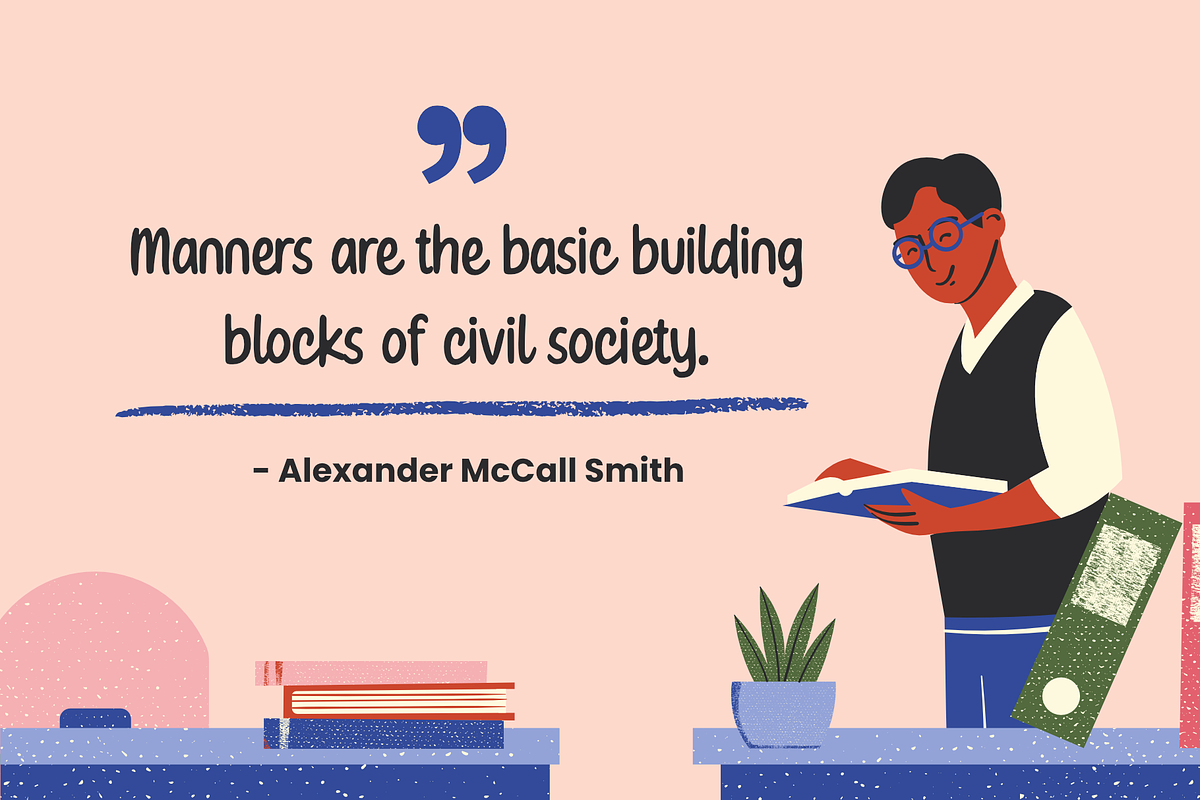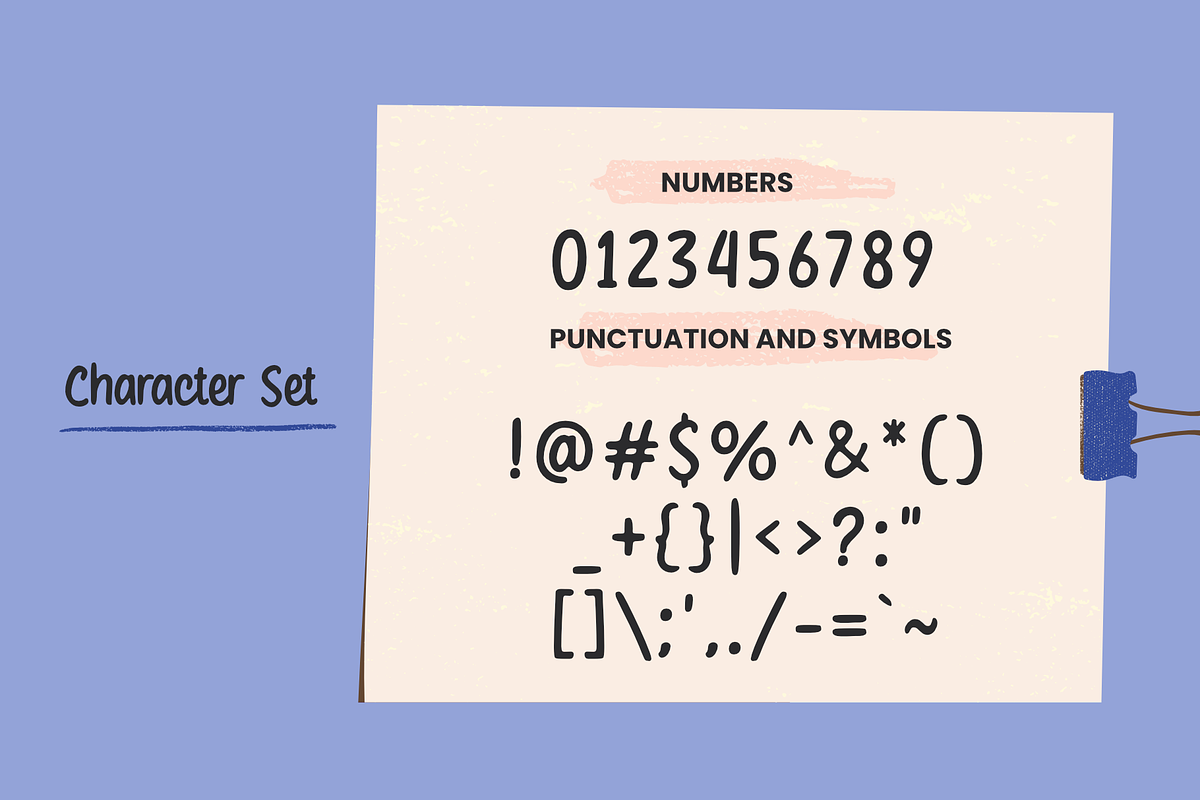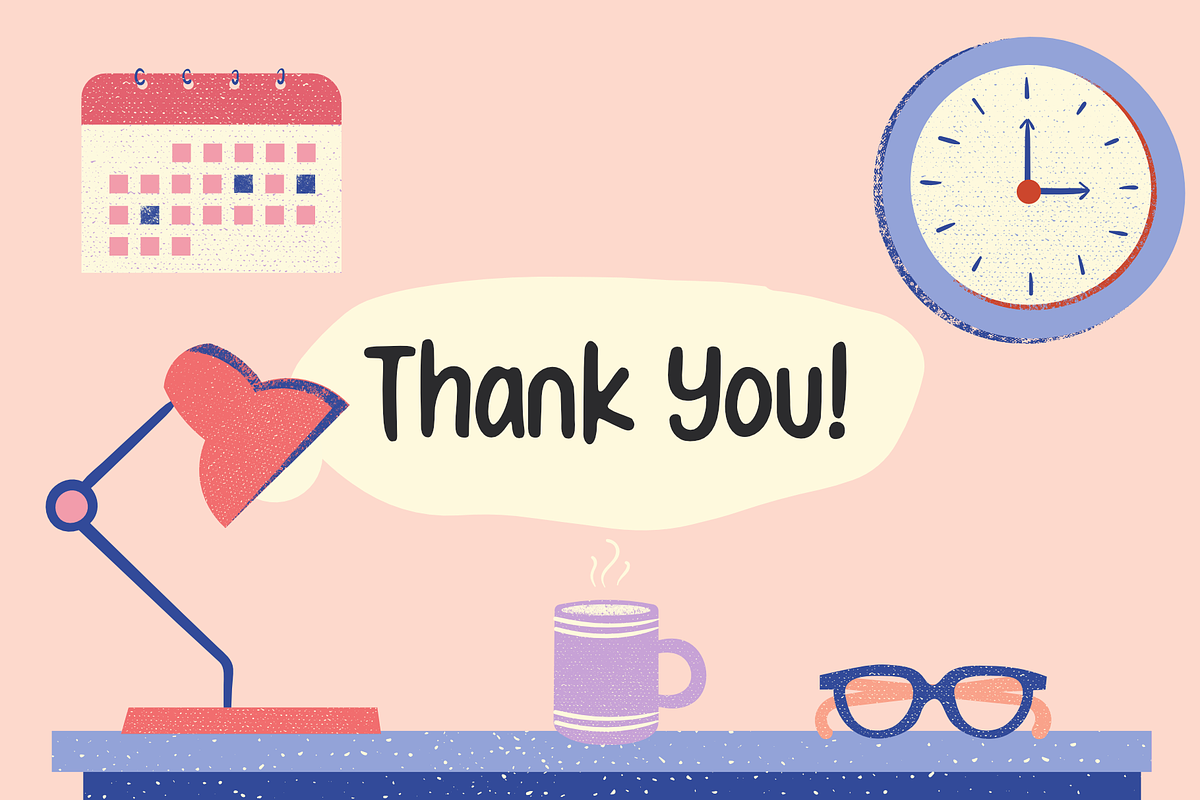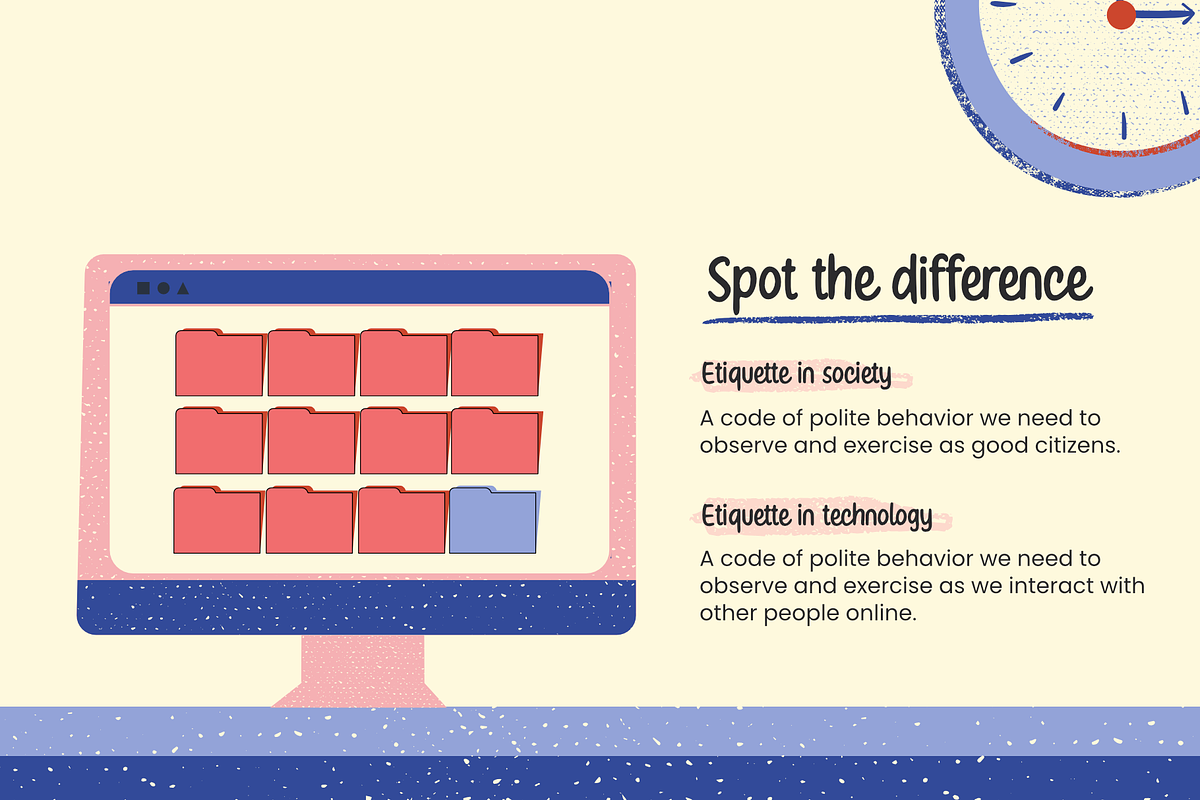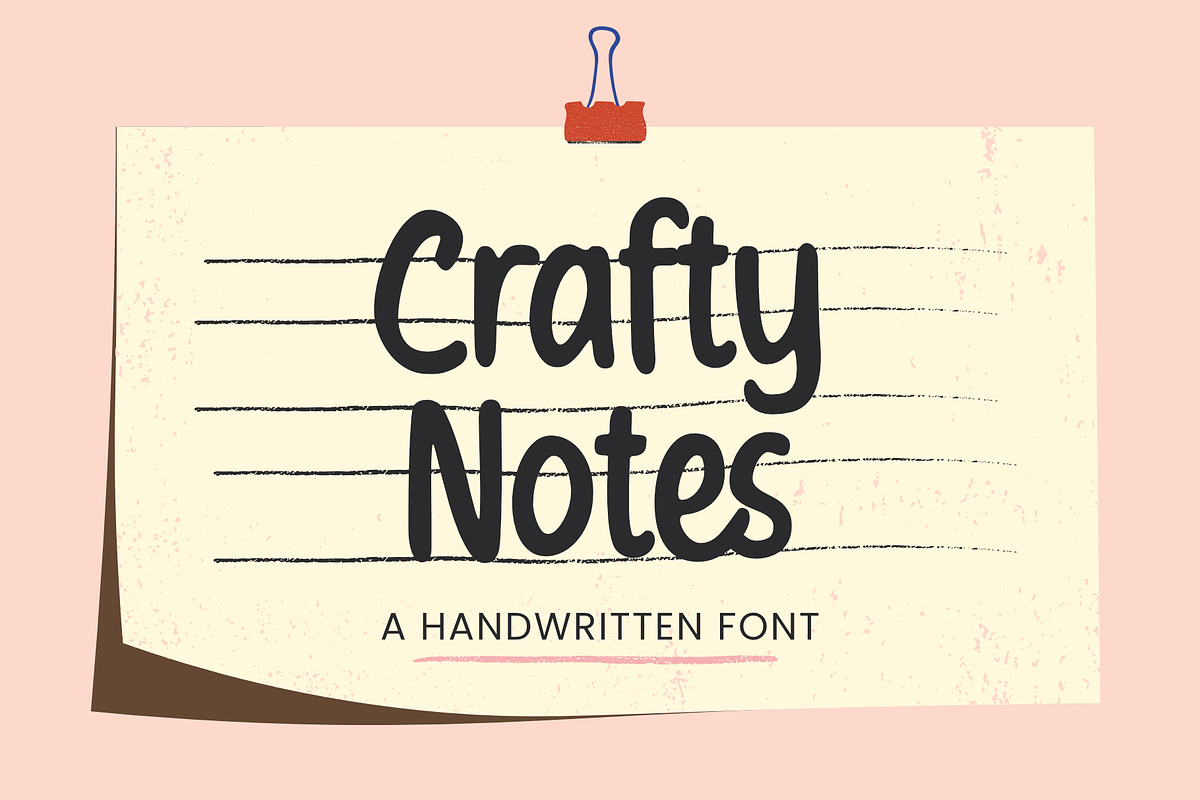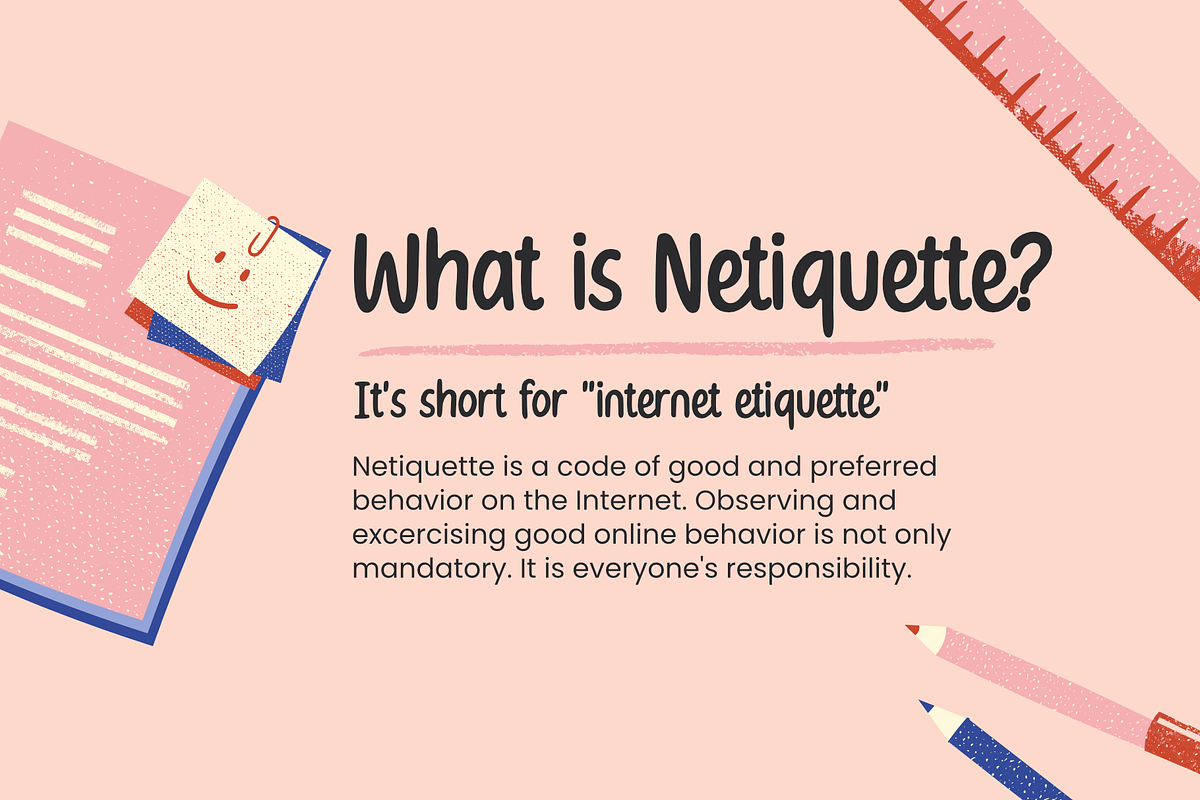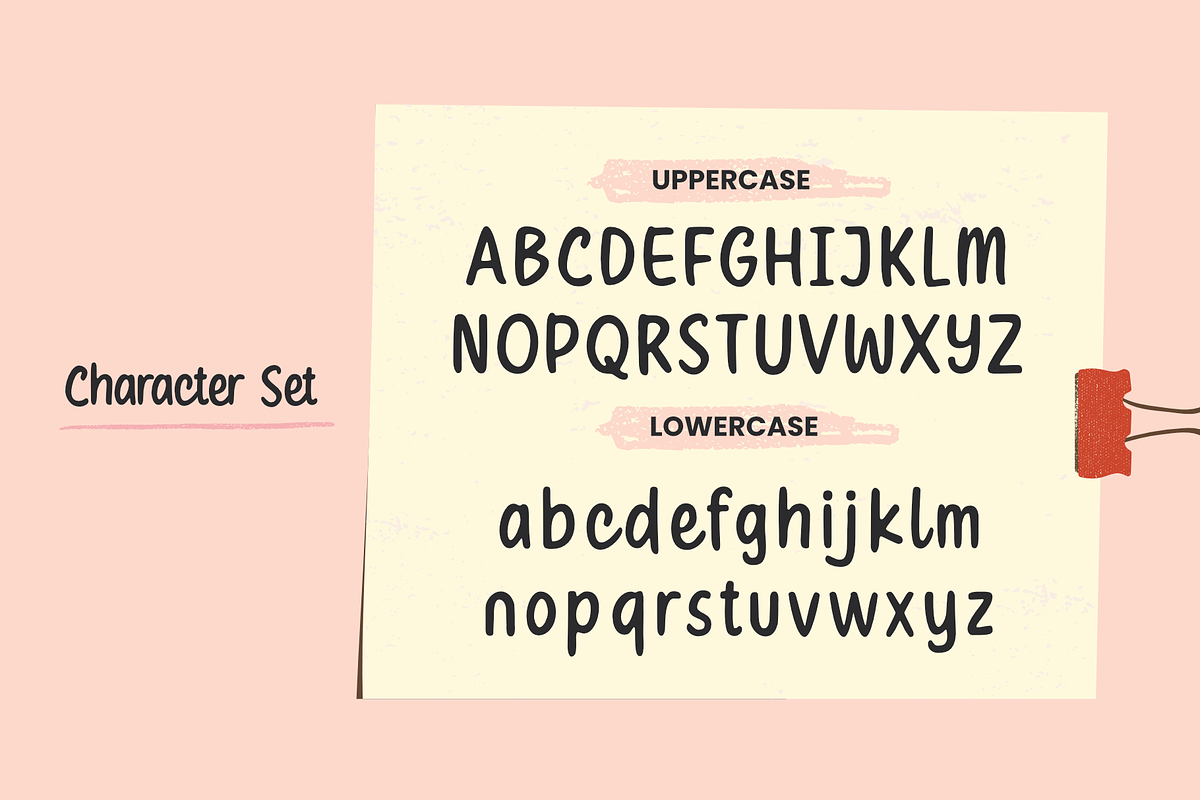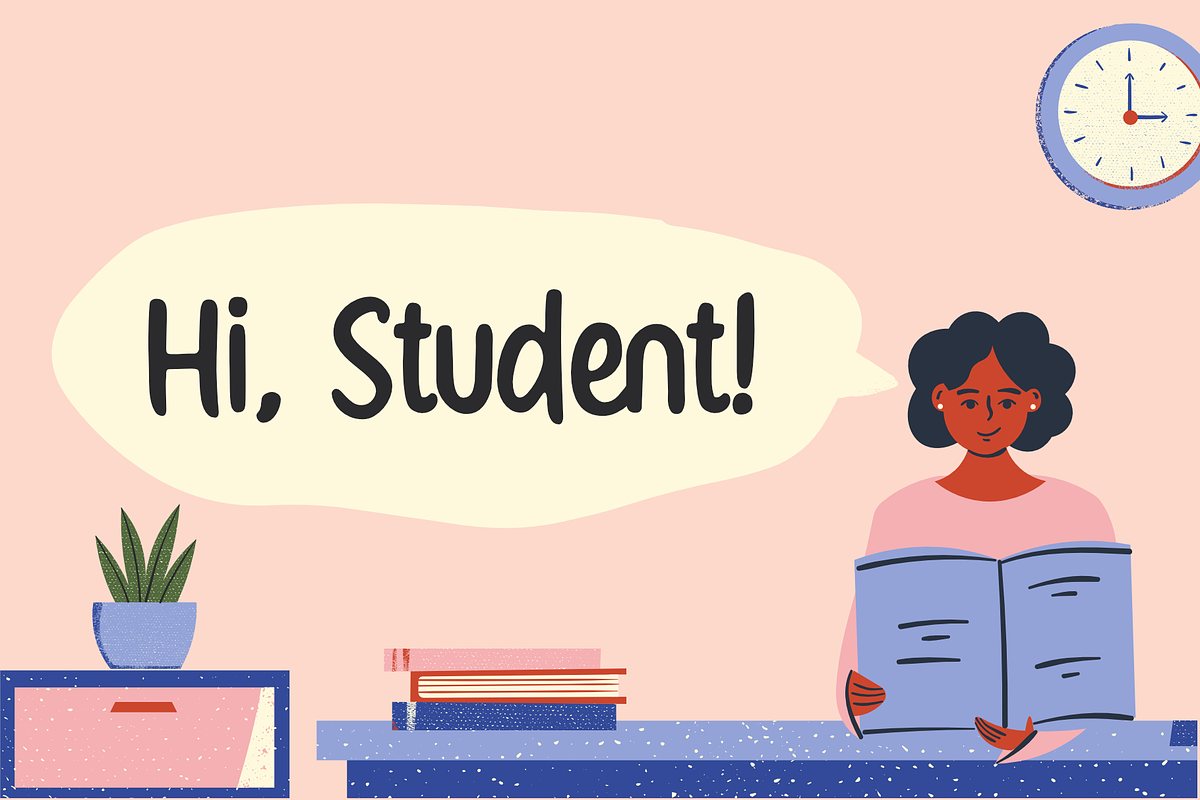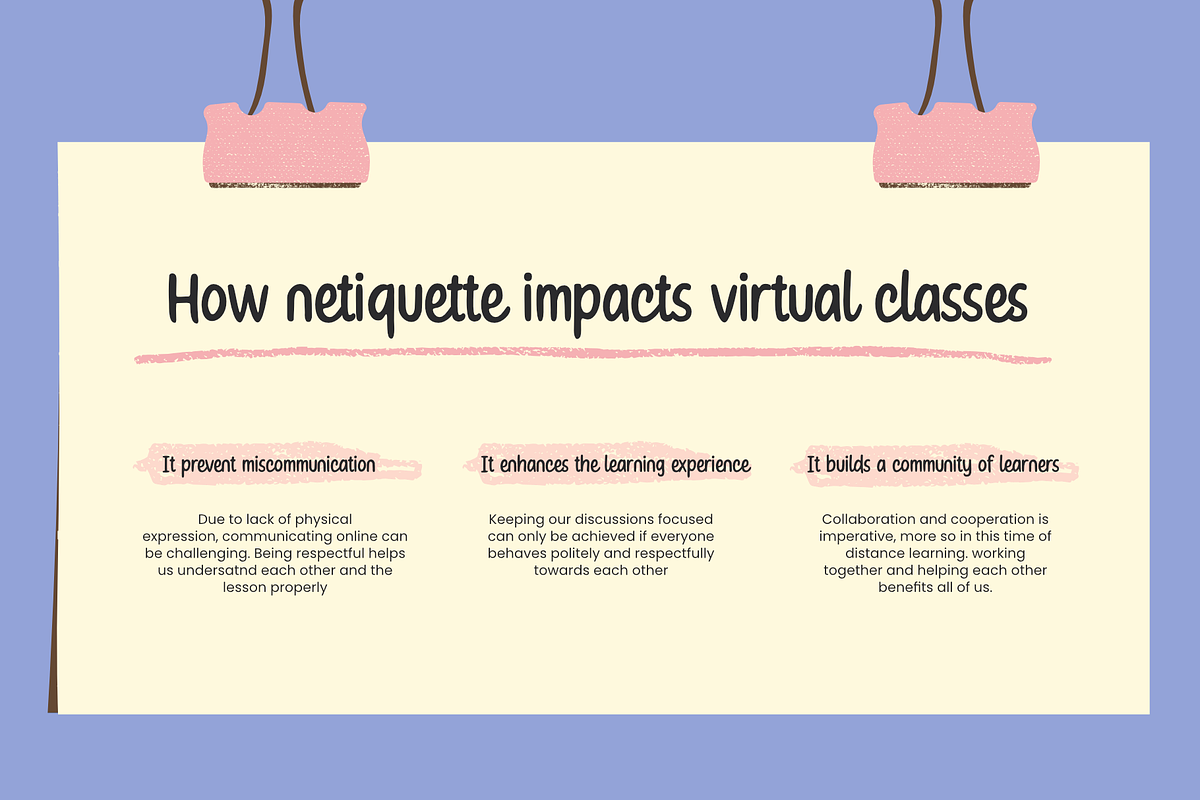
Crafty Notes - a Handwritten Font
Crafty Notes is a cute and simple lettered handwritten font. Whether you use it for cartoon related designs, children games or just any creation that requires a lovely touch, this font will be an amazing choice.